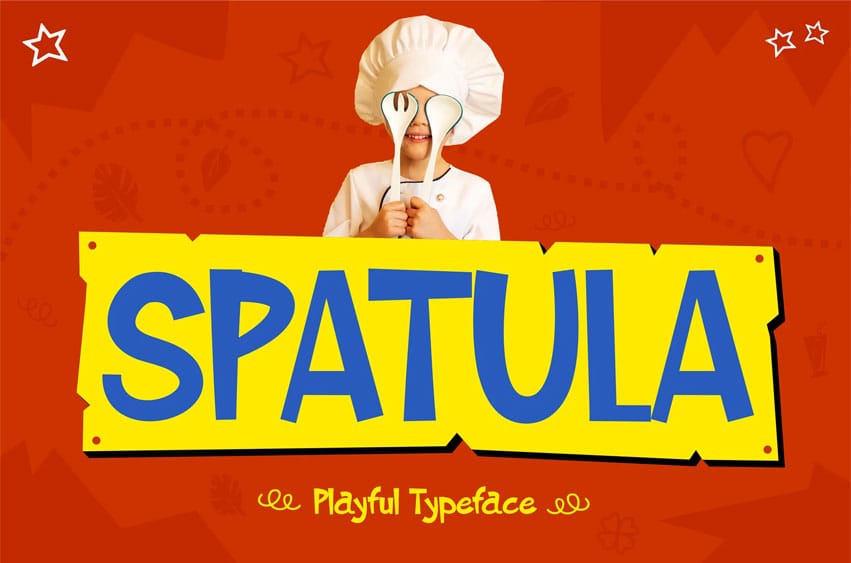
Spatula Font is a cheerful, chunky kids display style shaped for food packaging, playful branding, and classroom visuals. Its rounded strokes, bouncy baseline, and thick friendly proportions give it a lively, child-safe look that fits perfectly in educational apps, cooking-for-kids products, snack packaging, and brightly colored social posts. The letterforms feel hand-drawn and approachable, big, warm, and full of personality—ideal for designs that need energy and clarity.
This typeface works wherever you want bright, expressive communication: children’s food labels, learning worksheets, cooking-themed graphics, early-education posters, kid-focused websites, or event promotions. SPATULA helps you create content with confidence, keeping everything bold, readable, and joyfully flavorful.
SPATULA fits snack packaging, children’s menus, food-themed books, school worksheets, activity apps, restaurant kids-corners, cooking classes, colorful event posters, and creator-style graphics for teachers and parents. It brings a sense of fun and appetite-friendly charm to any kid-centric design.
Why Choose SPATULA?
- Friendly rounded shapes with thick, kid-safe proportions
- High readability for packaging, signage, and digital learning
- Perfect for children’s food brands, cooking events, and activity kits
- Energetic character style that supports playful, upbeat layouts
- Works across bright palettes, textured backgrounds, and bold compositions